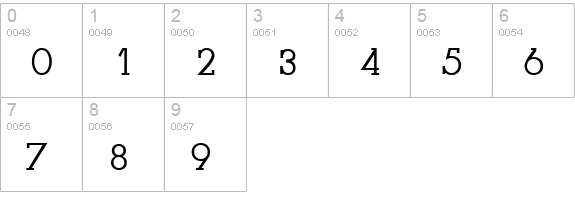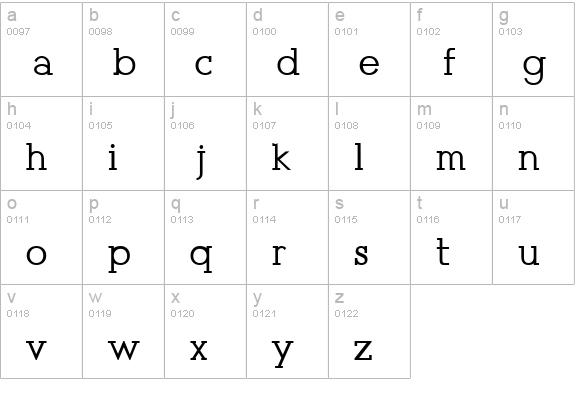
Presse (Unregistered) font is a classic and elegant typeface that exudes sophistication and charm. With its timeless design and impeccable letterforms, this font is perfect for adding a touch of refinement to any project. Whether you're creating invitations, branding materials, or editorial designs, Presse (Unregistered) font will elevate your work to the next level. The best part? Presse (Unregistered) font is available for free download at FontsMarket.com. You can easily access this exquisite font and use it in your projects without any cost. Don't miss out on this opportunity to enhance your designs with the beauty of Presse (Unregistered) font – download it today and let your creativity shine!